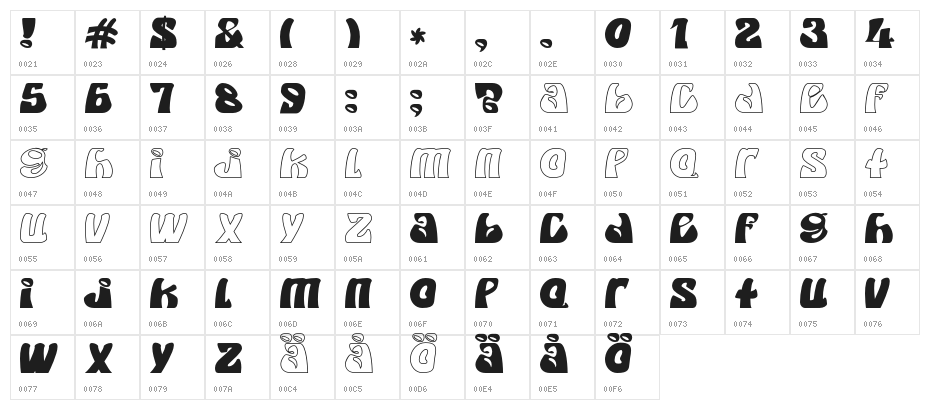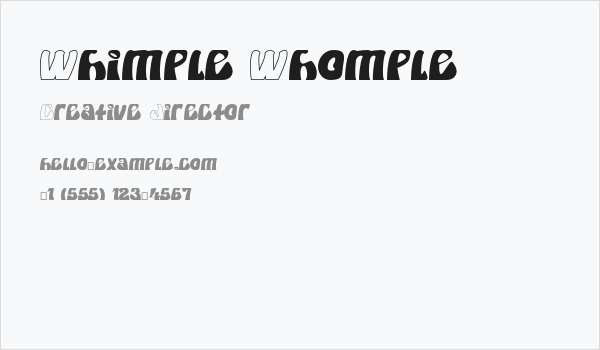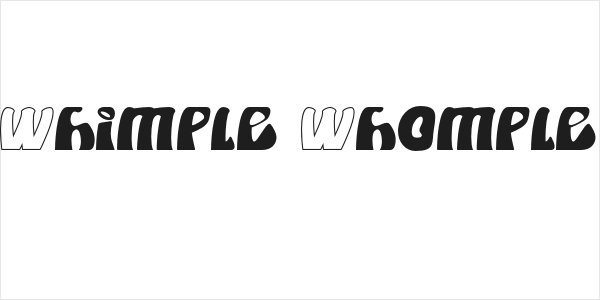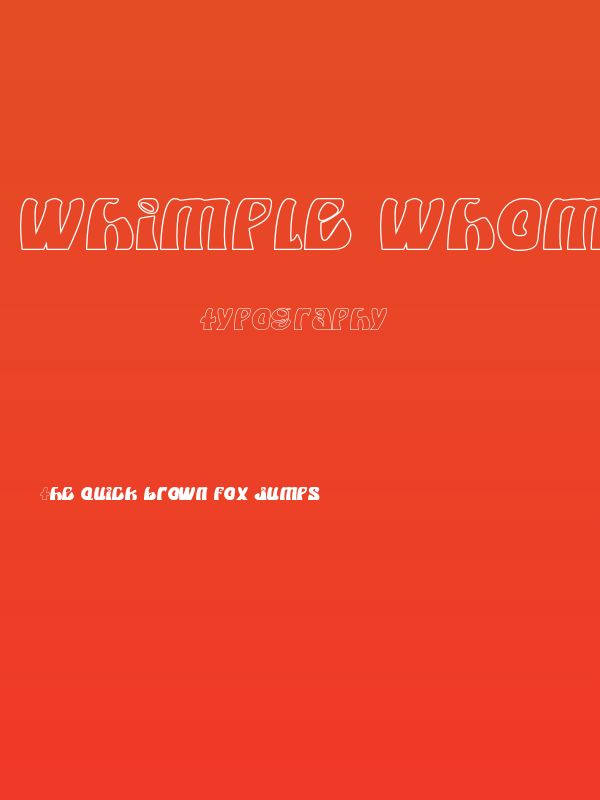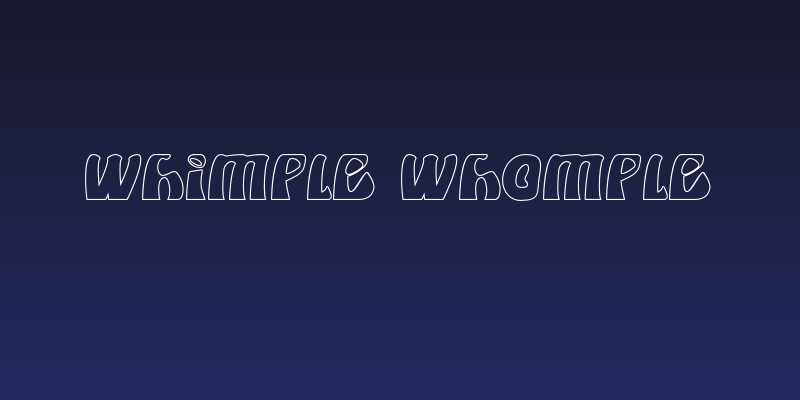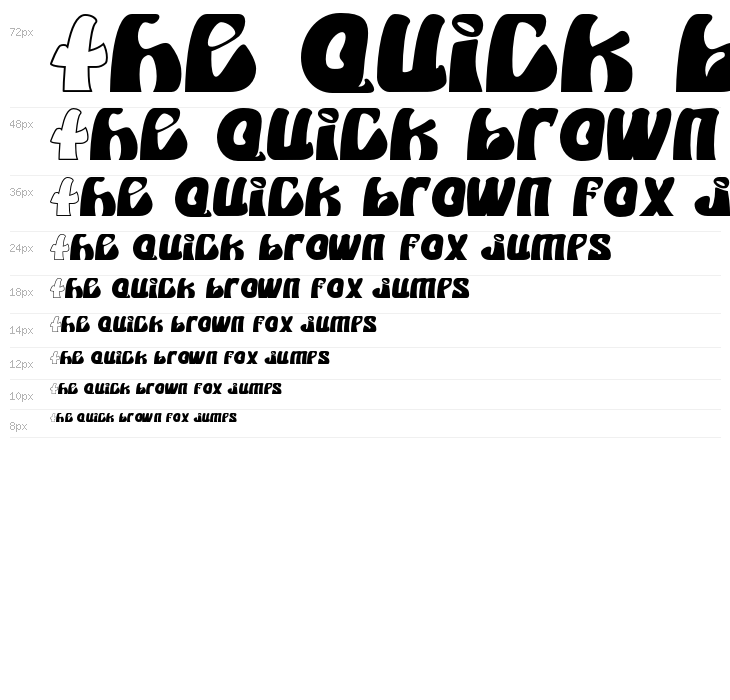
Whimple Whomple Font
Whimple Whomple Description
This playful and bold font features a unique, whimsical design with exaggerated curves and a strong presence. The characters are thick and rounded, giving them a cartoonish and friendly appearance. The uppercase and lowercase letters maintain a consistent style, with some letters featuring unexpected twists and turns that add to the font's charm. The numbers and special characters follow the same playful theme, making the font suitable for creative and informal projects. Its boldness ensures high visibility, making it ideal for eye-catching designs.
| Proposed Projects | Ideal for children's books, playful branding, posters, and creative invitations. |